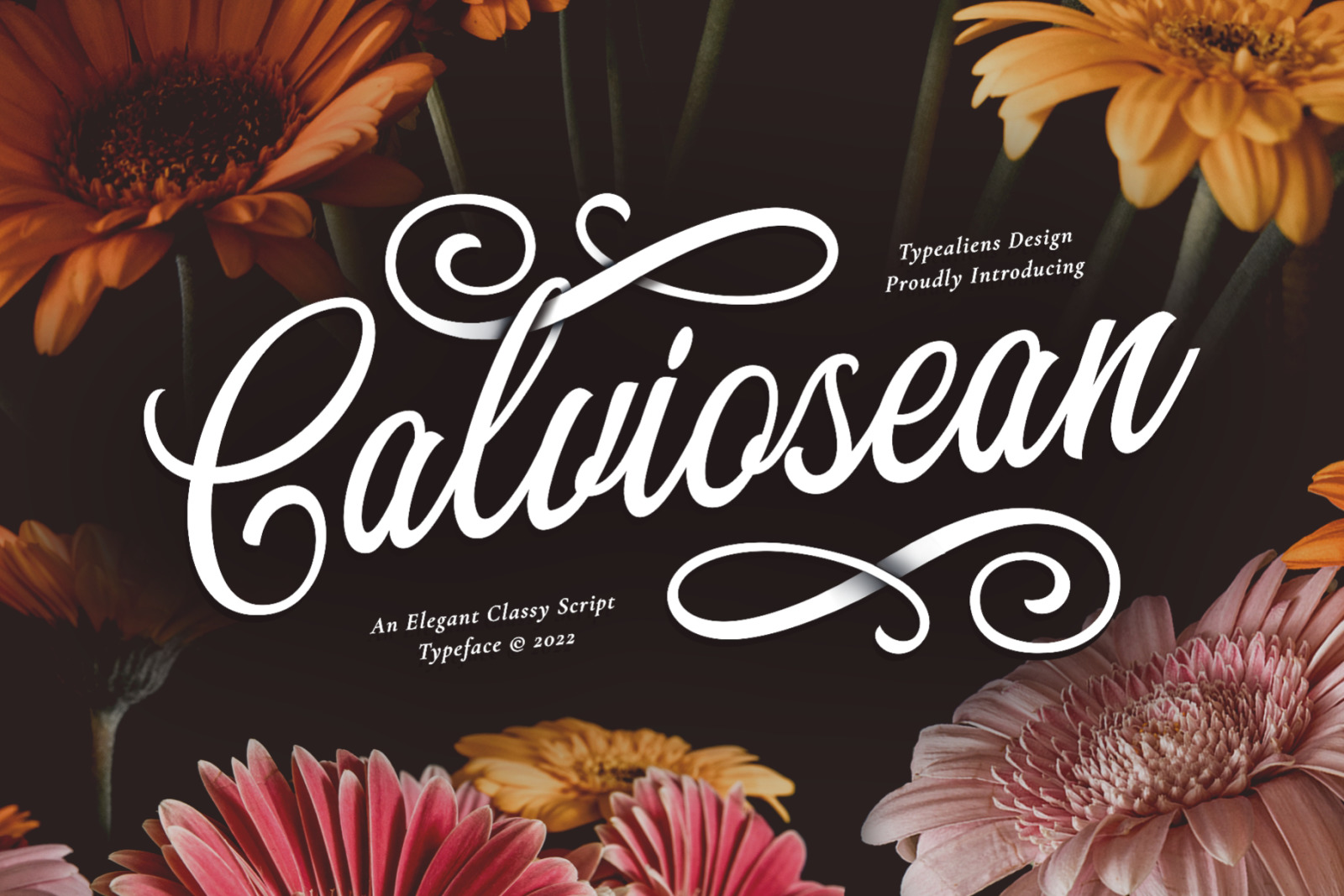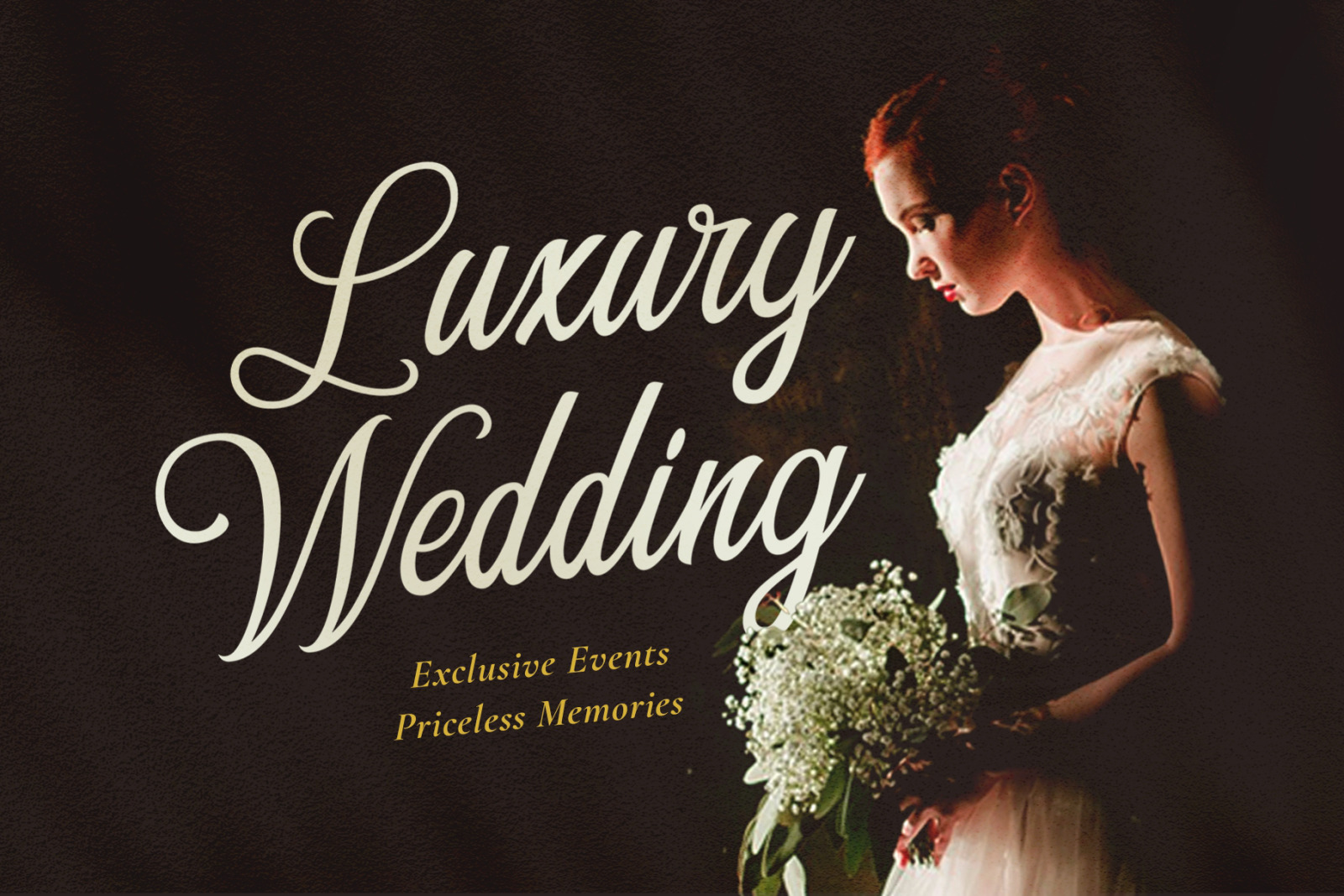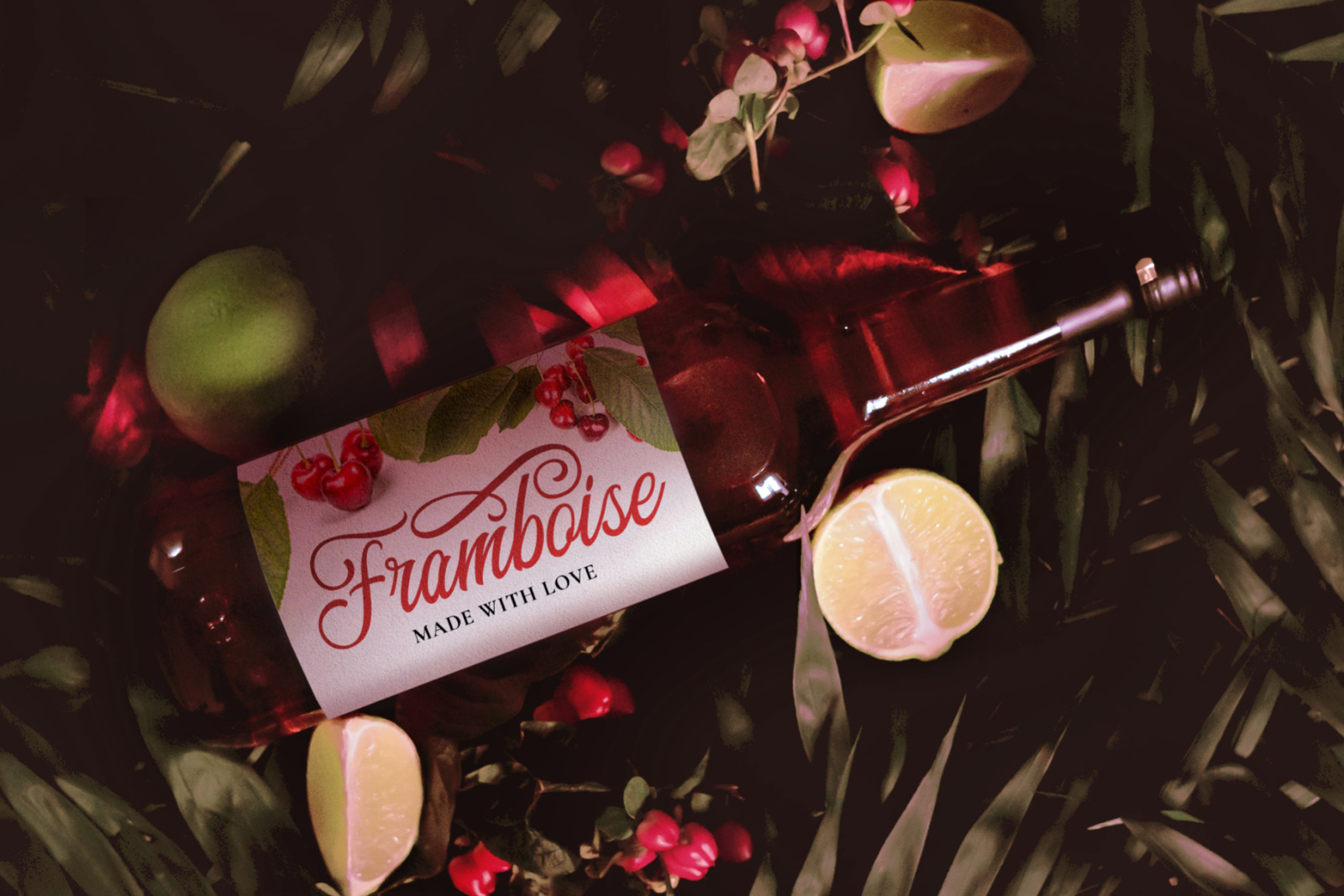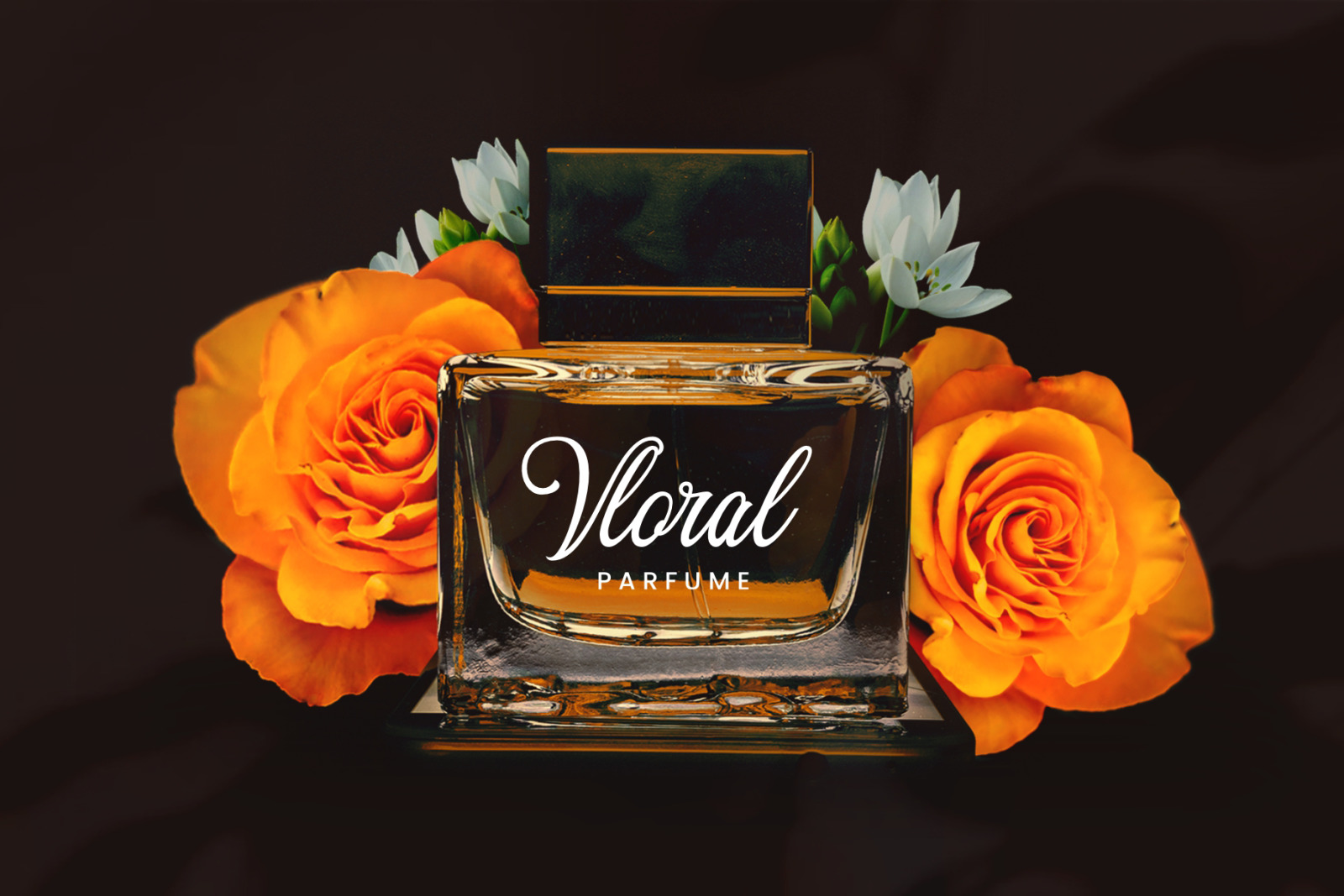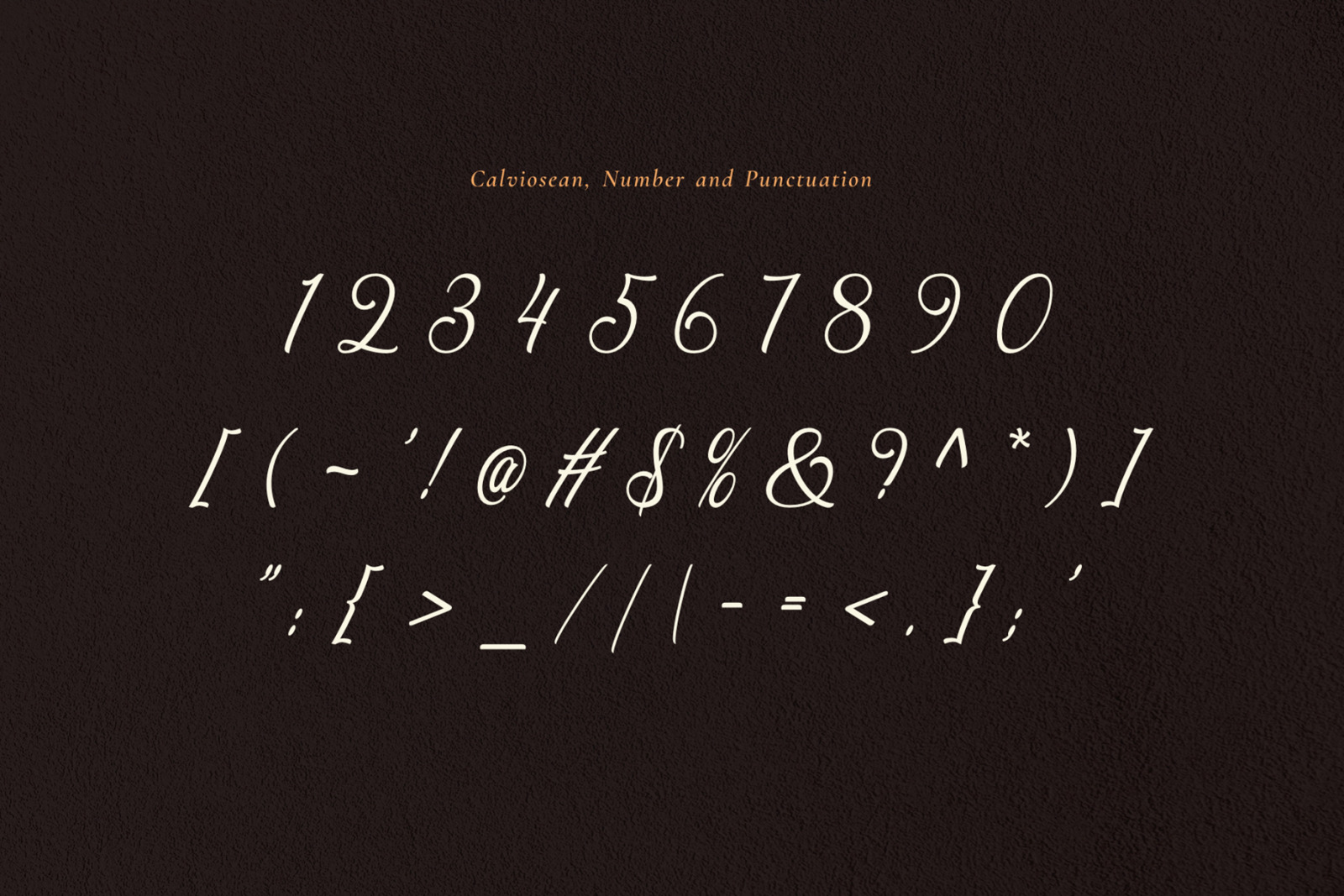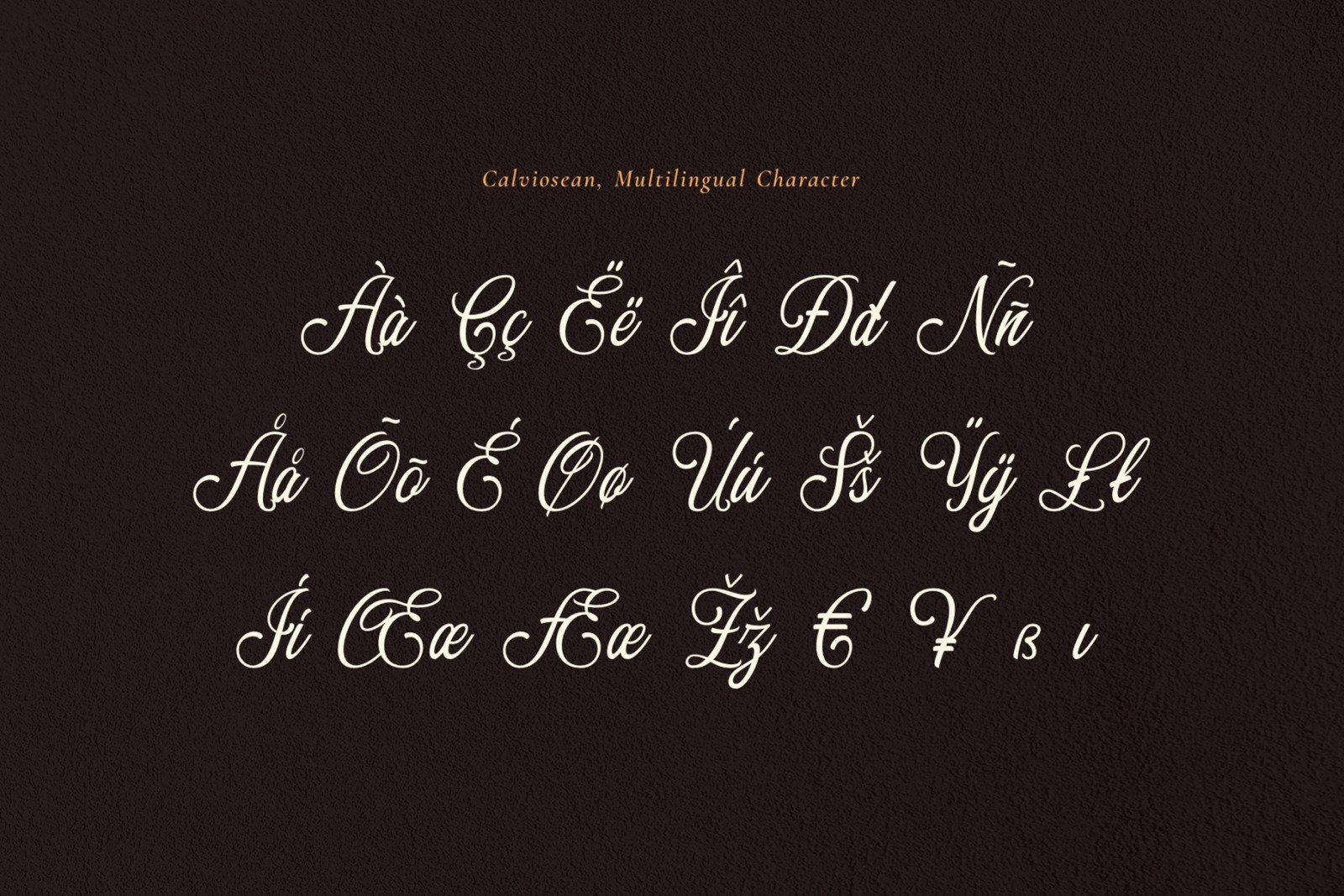
Calviosean Font
CALVIOSEAN is a classic script font inspired by the old copperplate font with a slight simplification of the uppercase so it's less decorative. In addition to being classic, this font is also elegant, so it does not rule out the possibility for simple and elegant modern designs, such as perfume products or 5-star hotel logos.